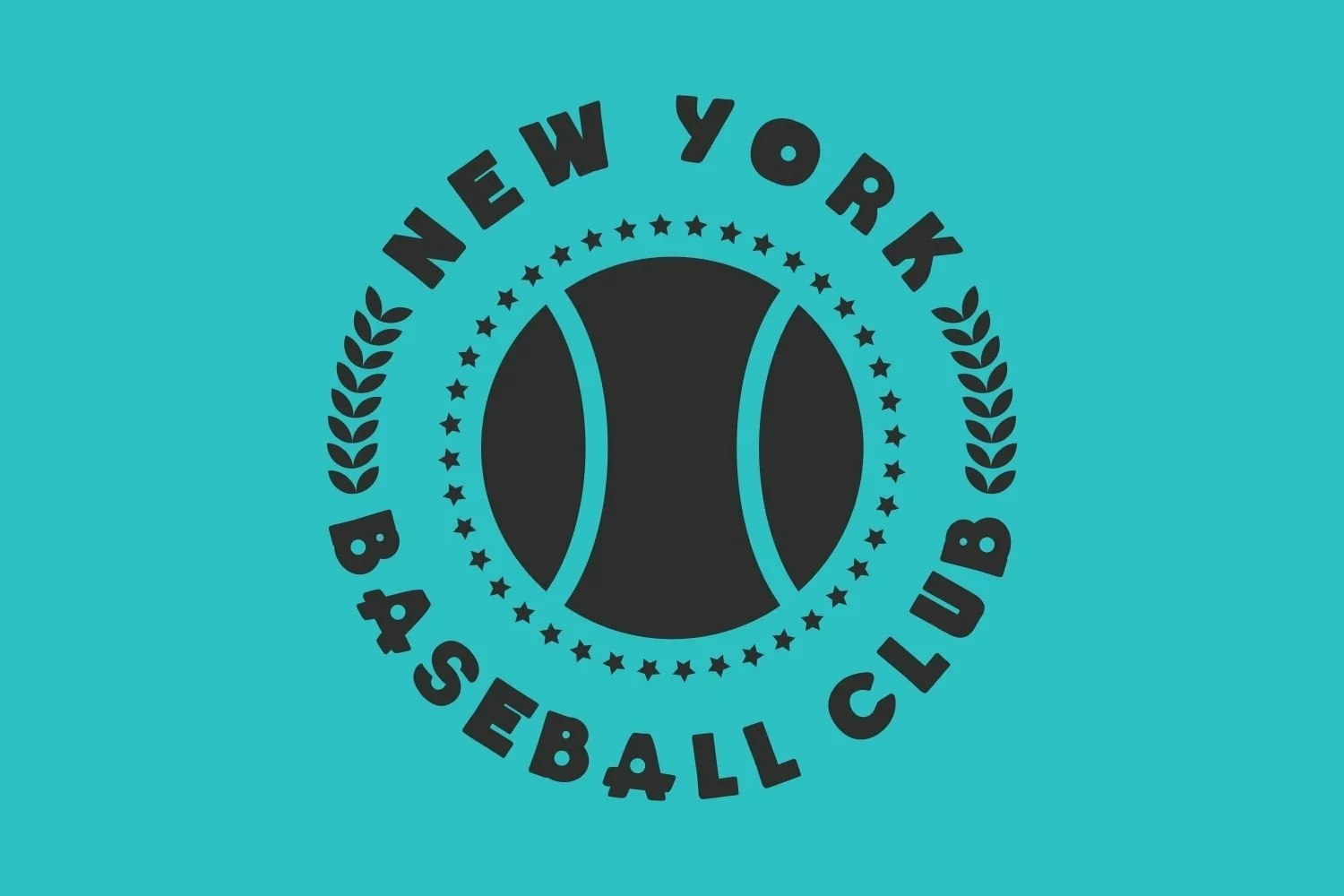
Bollind is san serif display come with baseball themes. We wanted to create the most clean and simple character. It matches applies in some designs such as the logotype, brand, packaging, quotes, sport poster, t-shirt, invitation and more custom design. The features uppercase, lowercase, numeral, punctuation & symbol, multilingual support, PUA encoded (fully accessible without additional design software).